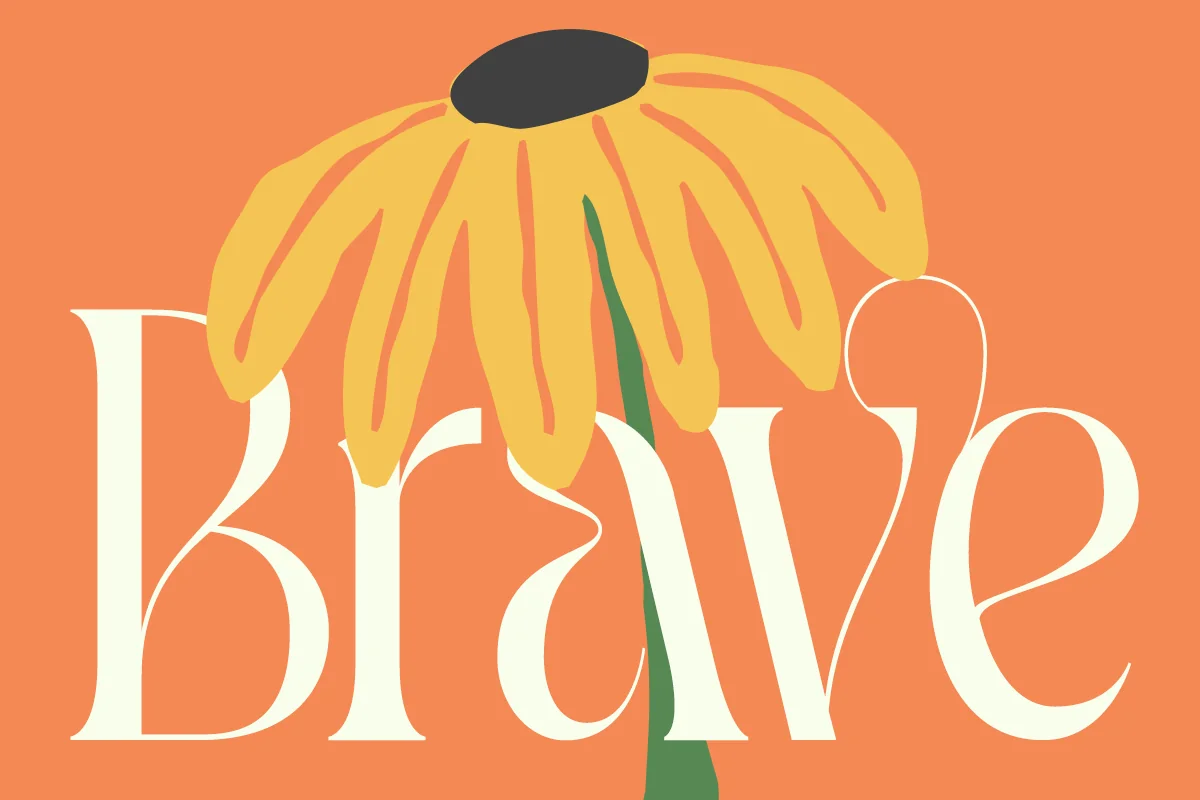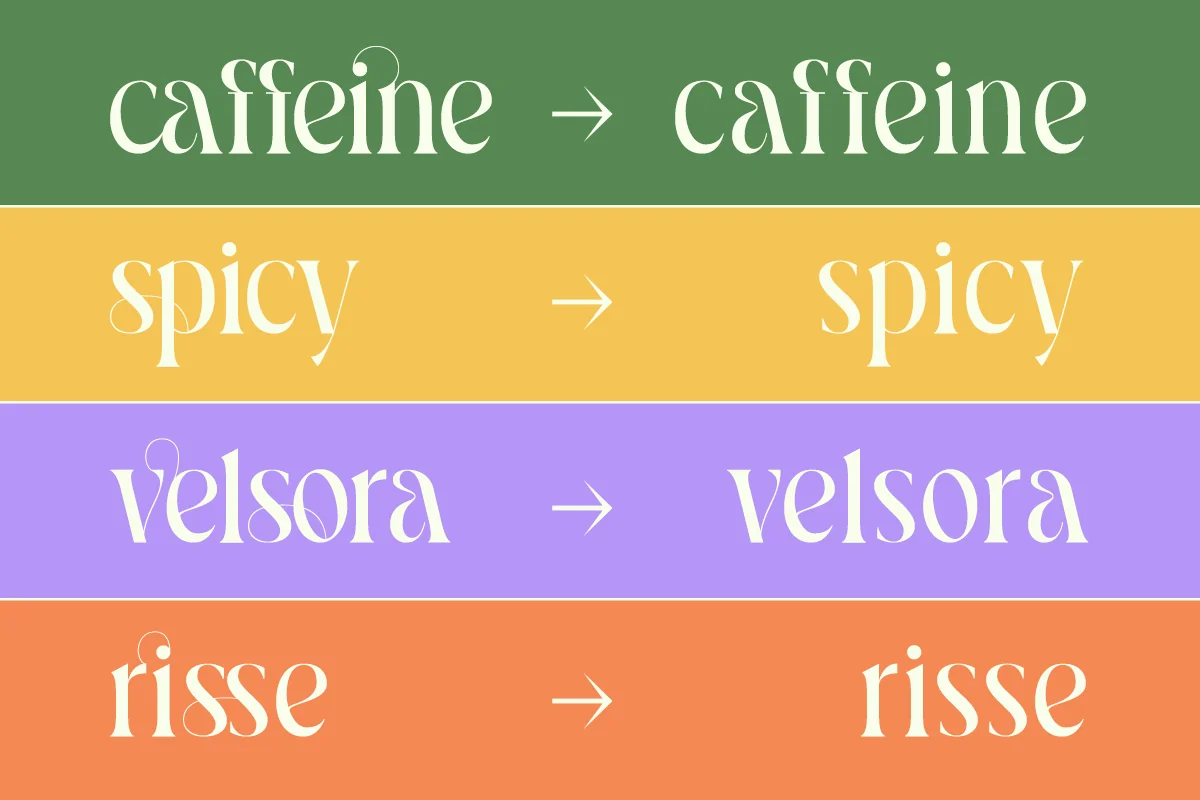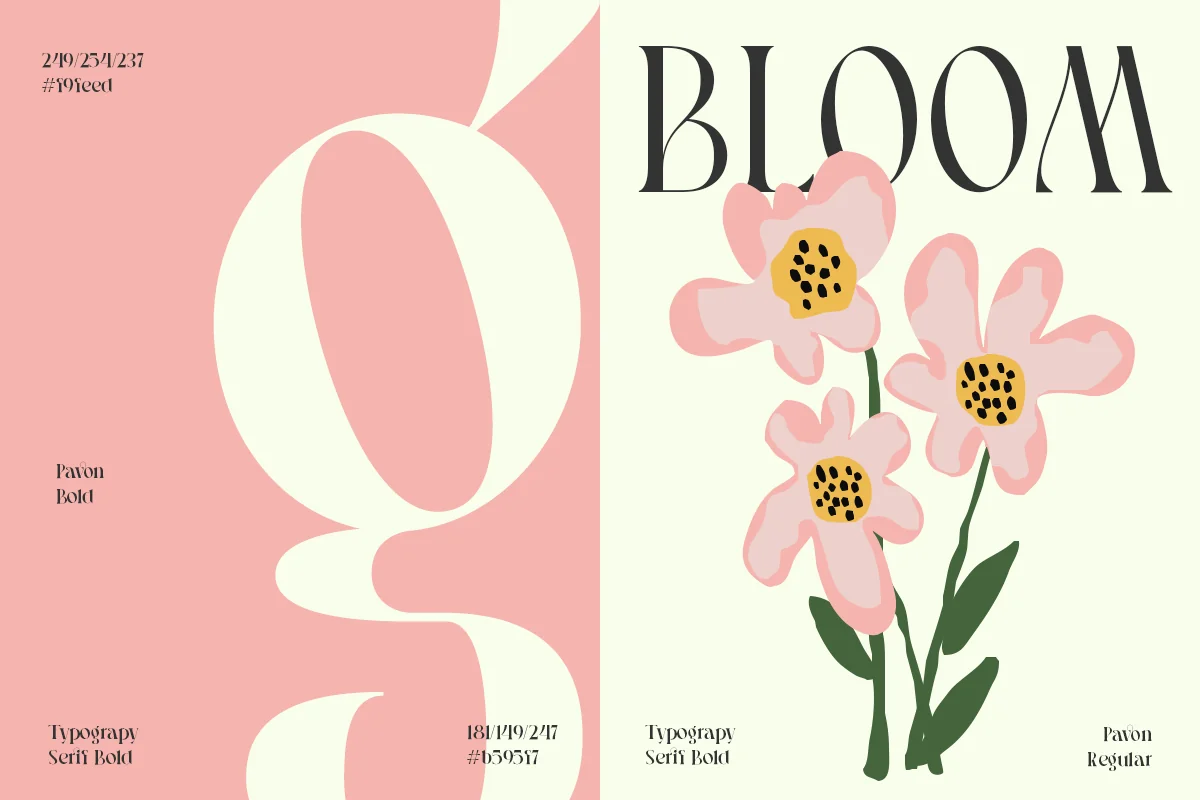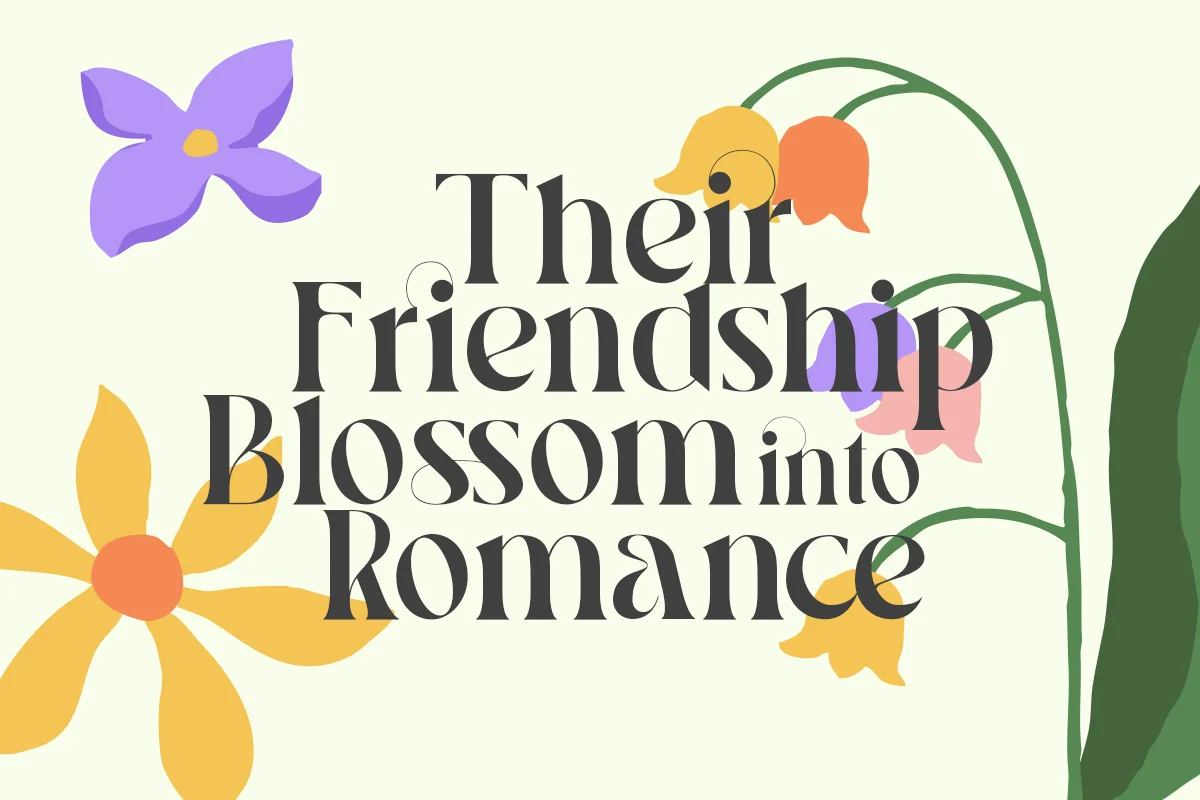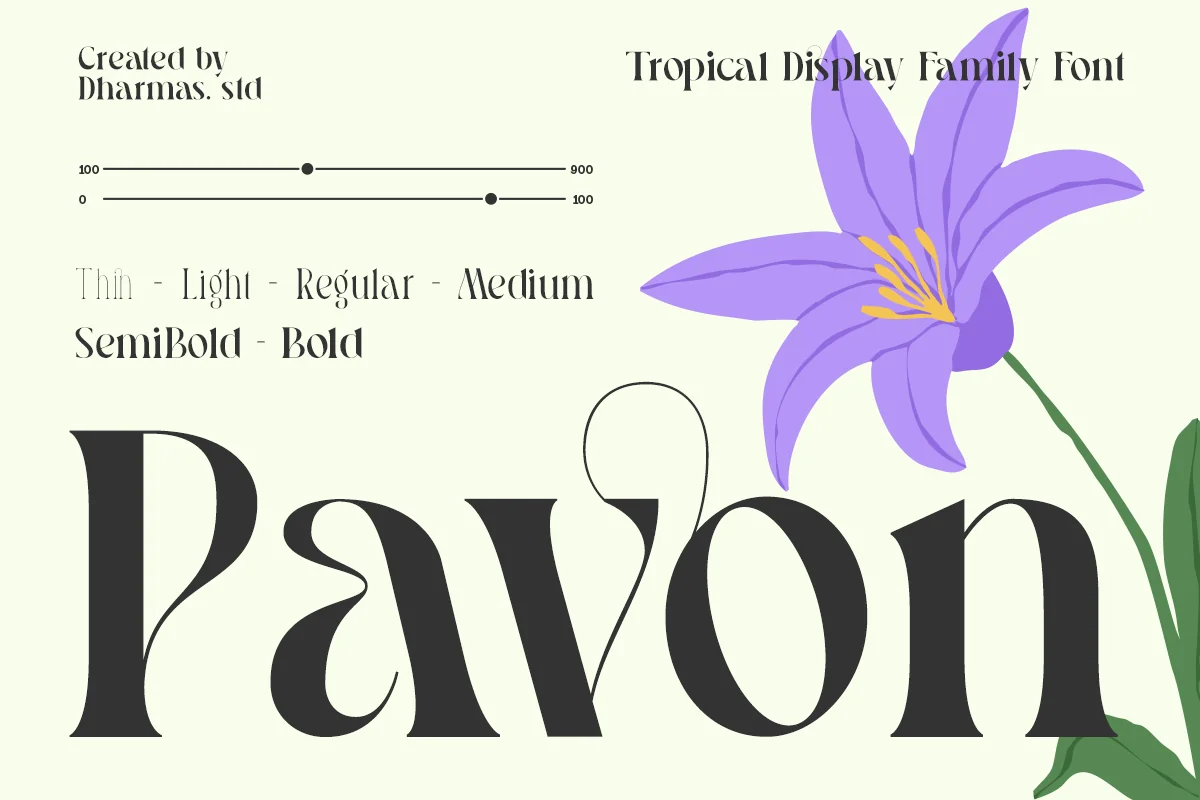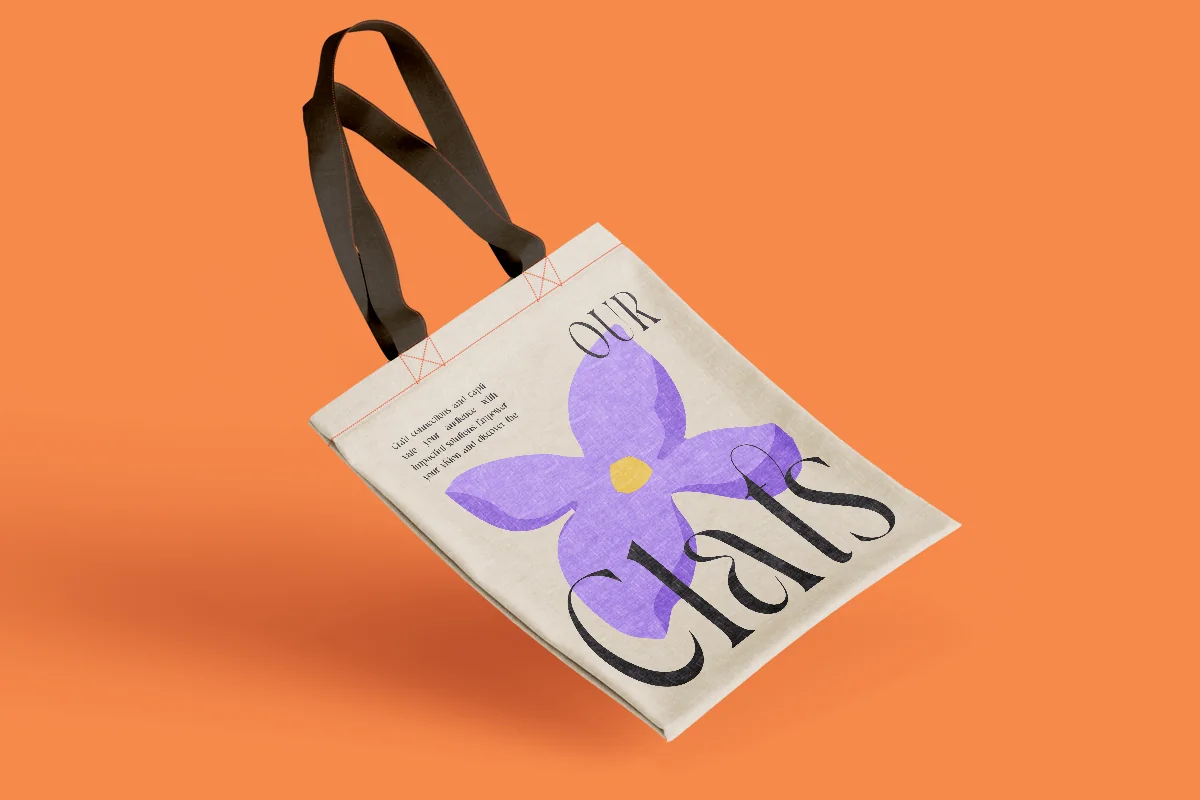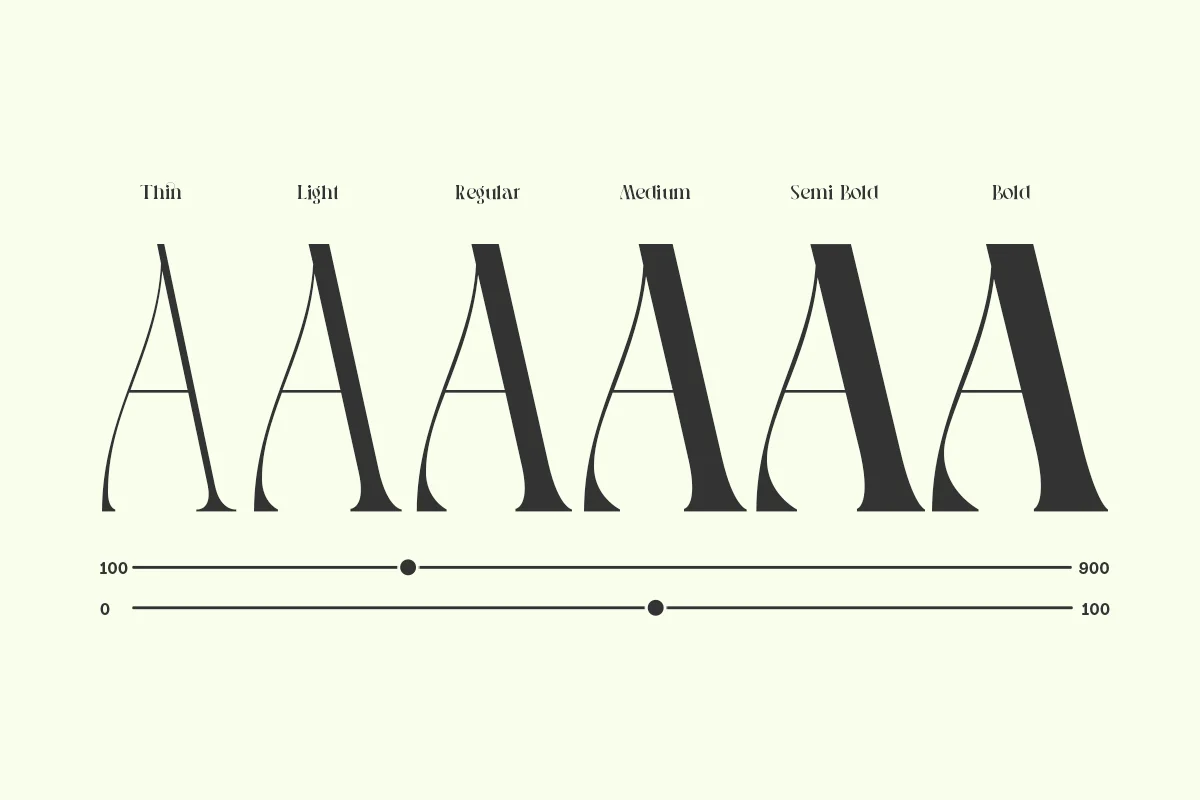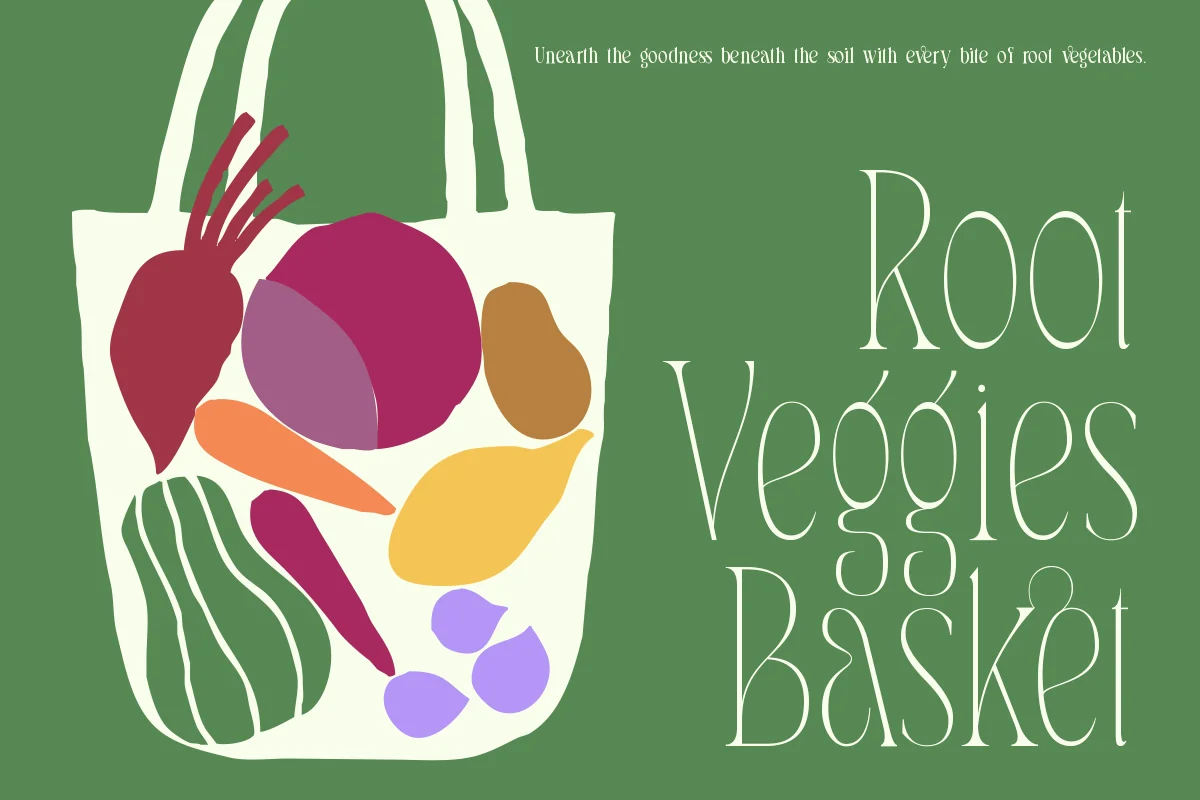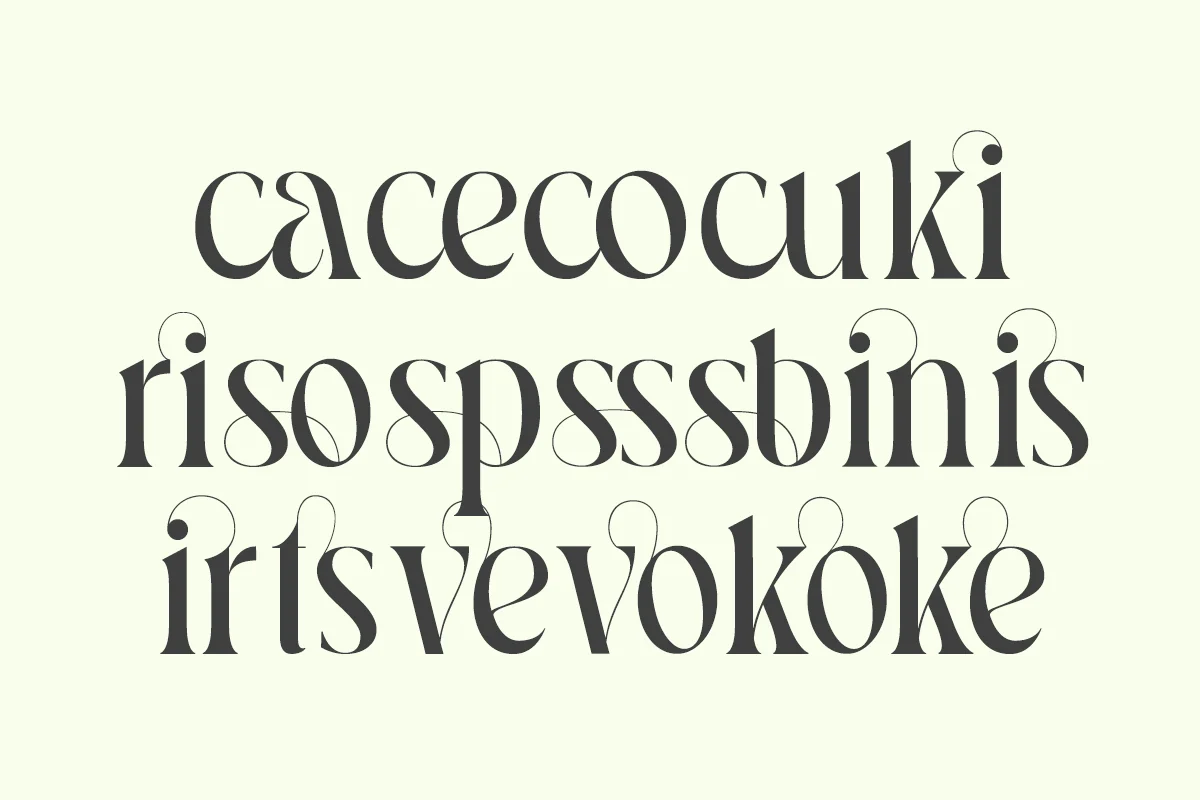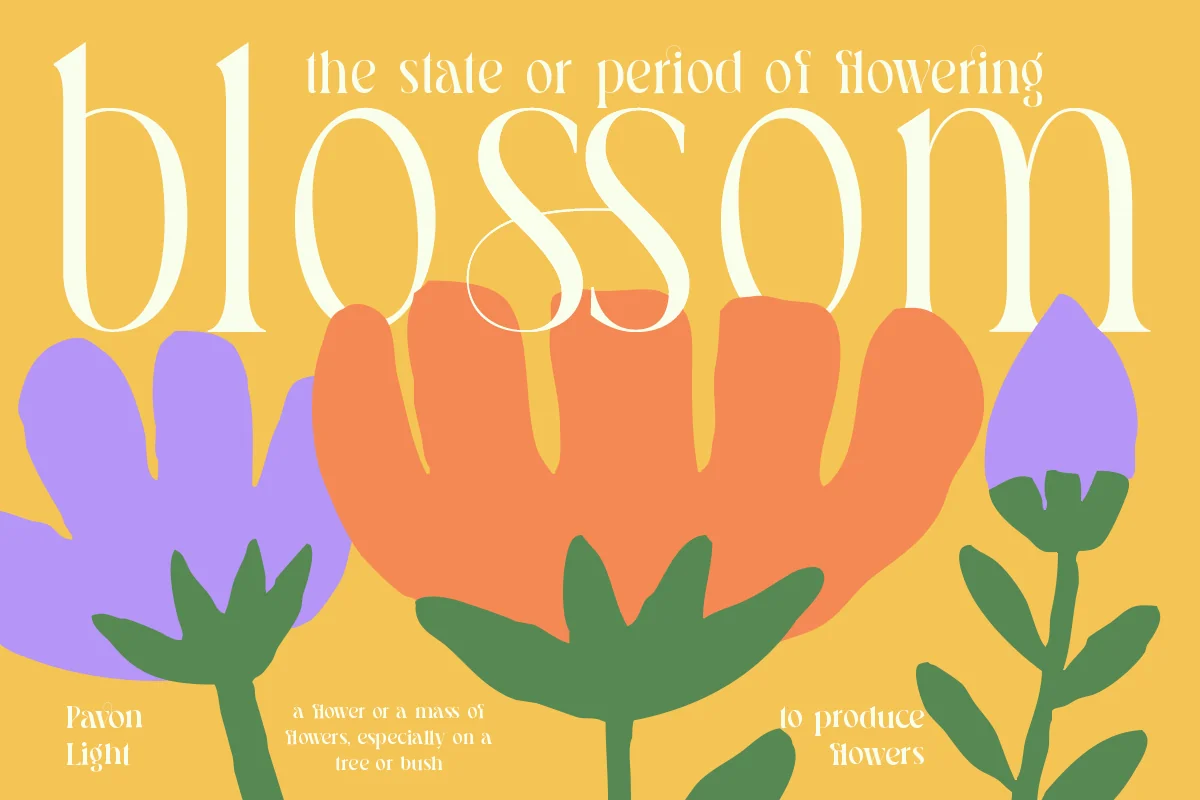
Pavon – Modern Luxury Font
Introducing Pavon – a brand-new modern typeface family inspired by the elegance of Art Nouveau!
Pavon draws its charm from the sophistication of 1910s Italian lake posters, blending an Art Nouveau flair with contemporary design. This typeface embodies a perfect balance between eccentricity and delicacy, much like a garden in full bloom.
Pavon is a display serif typeface, ideal for headlines and short to medium-length texts. It features six weights: Thin, Light, Regular, Medium, SemiBold, and Bold. Pavon stands out for its nonconformist, romantic, and delicate character, enhanced by extravagant alternates. Its unique curves and refined details create a rhythmic and timeless elegance. The Bold version, with its high contrast, ensures maximum visibility.
Pavon includes 21 stylistic ligatures, allowing letters to combine as seamlessly as nature itself. Each letter is meticulously crafted to ensure a harmonious transition from one to the next, maintaining a melodious flow.
- 6 Variable; Thin, Light, Regular, Medium, SemiBold, and Bold
- Have Beautiful Ligatures
- Unique Gylph Character